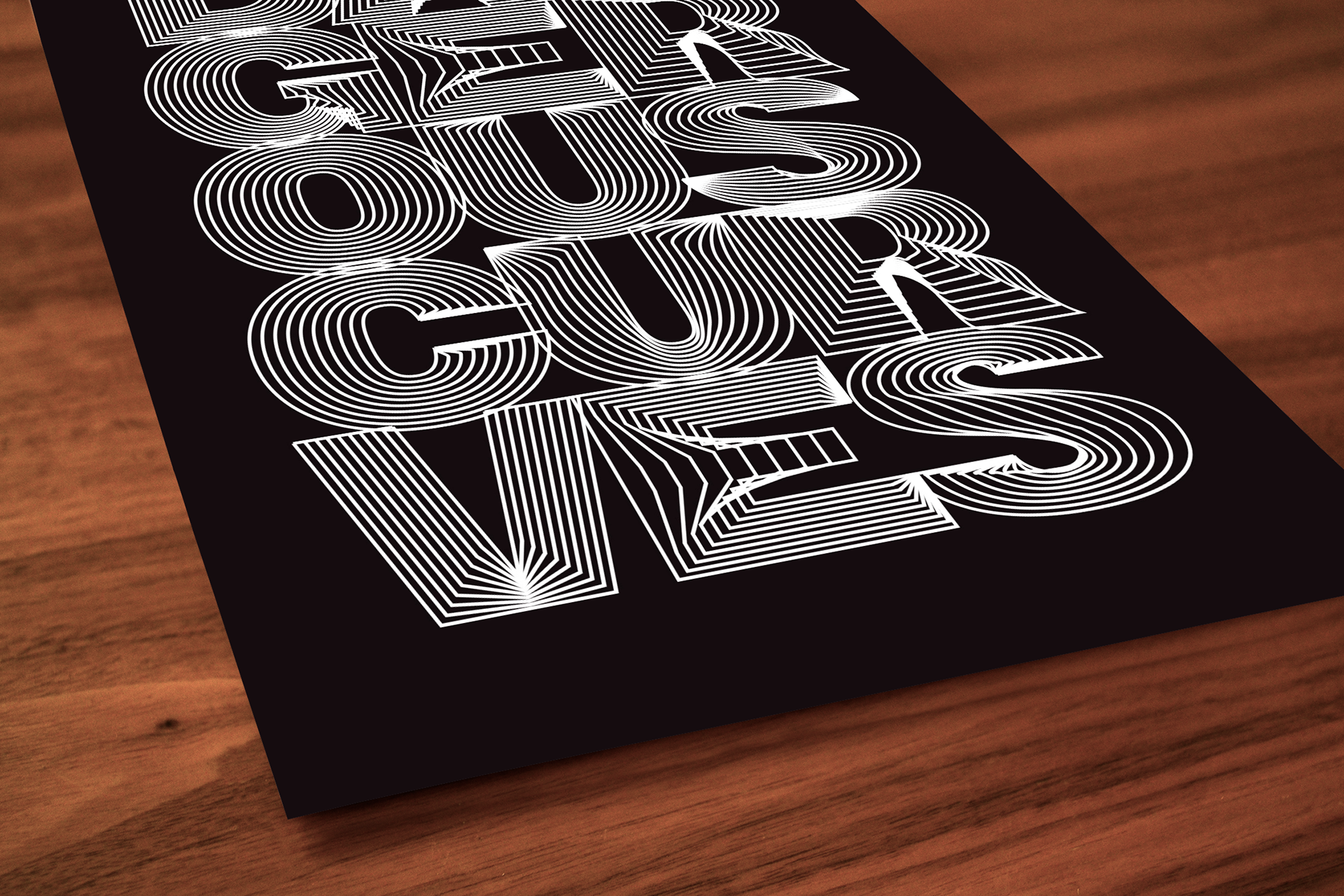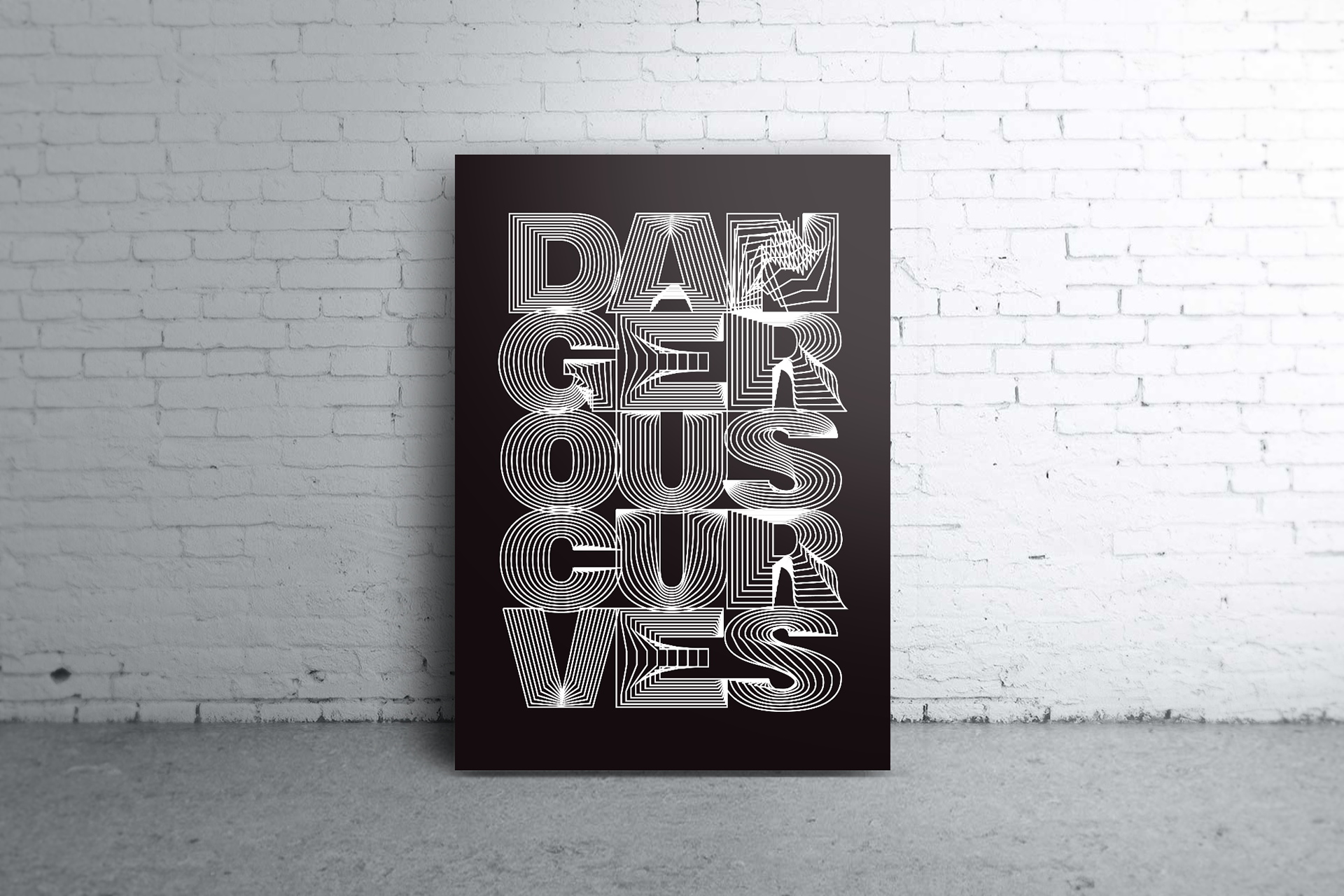
Letter-Form Exhibition 01
I produced this piece for the 2020 Letter-Form Exhibition, held at Revolver Upstairs in Prahran. The letterforms were drawn from an old typography reference book and after much play and digital experimentation this was the result!